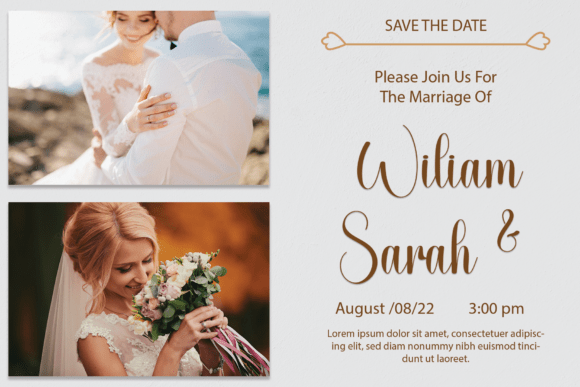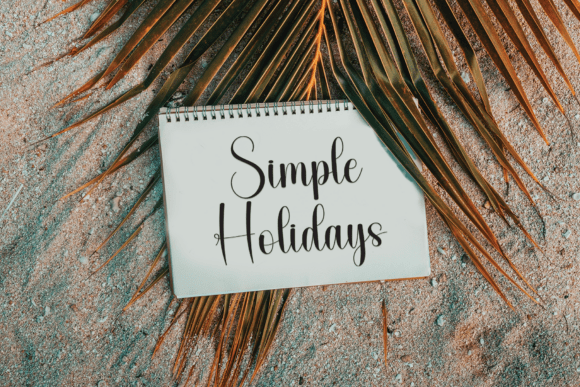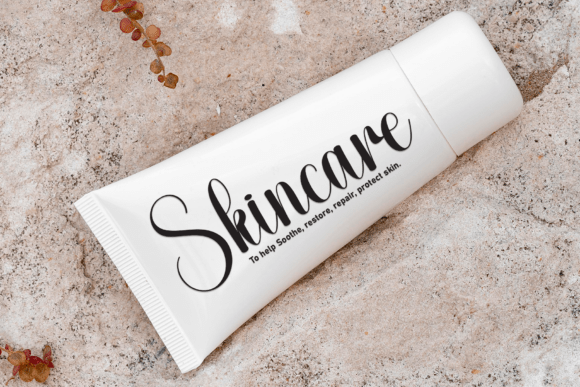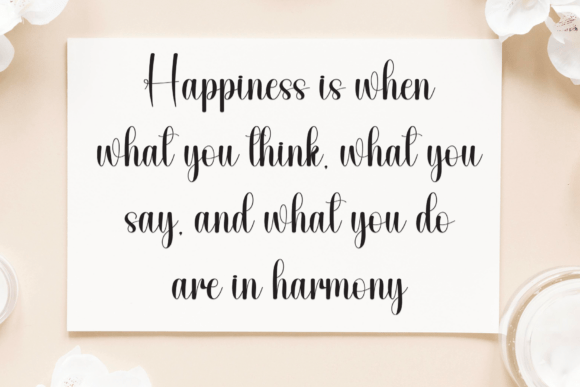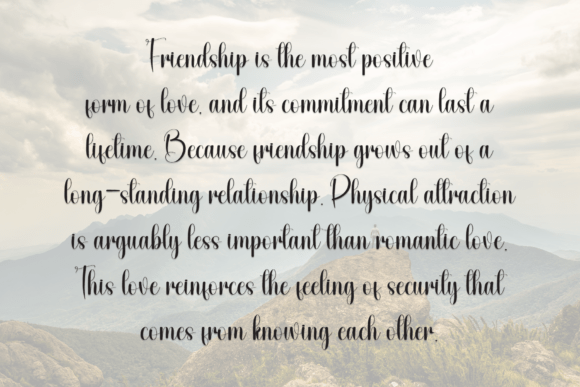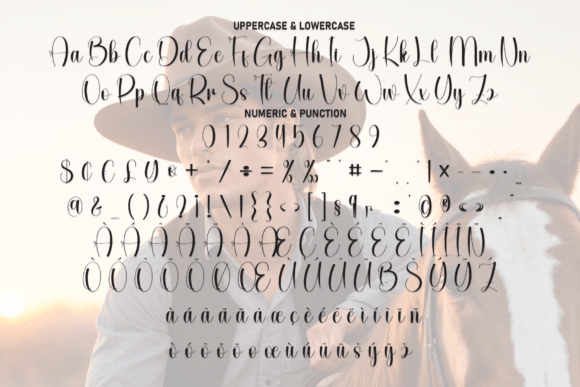
Introduction to Howdy Font
Do you remember the thrill of creating your first handmade card or wedding invitation? The rush of excitement as you carefully select each element, from the font to the graphics, to make it truly special? For many designers, that moment is a defining part of our creative journey, and it’s what makes our work so personal and meaningful.
Today, we’re excited to introduce you to a new design resource that’s sure to bring a smile to your face: the delightful Howdy Font. This charming, handwritten display font is the perfect blend of whimsy and charm, making it an ideal choice for any creative project that needs a touch of personality.
Whether you’re a seasoned designer or just starting out, Howdy Font is a valuable addition to your design toolkit. With its high-quality design and transparent background, you can easily incorporate it into your designs and take them to the next level. And the best part? It’s available for free download, making it a fantastic resource for designers of all levels.
Key Features of Howdy Font
- High-quality design: The Howdy Font is a premium font that offers a unique and stylish design perfect for any creative project.
- Transparent background: The font has a transparent background, allowing users to easily layer it over other design elements.
- High-resolution design: The font is designed at a high resolution (300 DPI), making it perfect for use in large-scale designs and prints.
- Unique characteristics: The Howdy Font features a unique blend of western and modern elements, making it perfect for designers looking to add a touch of personality to their creative projects.
- Perfect for various design projects: The Howdy Font is ideal for use in logos, branding, signage, and other creative projects where a high-quality, unique font is required.
Honest Review: Howdy Font
I recently came across the Howdy Font while searching for a unique design resource for a creative project. I was excited to download it for free and see if it would meet my expectations.
The first thing I noticed about the Howdy Font is its high quality and crisp lines. It’s perfect for a design project that requires a bold and eye-catching font. The font is also available with a transparent background, which is a huge plus for designers who need to customize their designs.
What works well with the Howdy Font is its versatility. It’s suitable for a wide range of creative projects, from logos to brochures. The font is also easy to use, even for designers who are new to font selection.
- ✨ High-quality design with crisp lines
- ✨ Available with transparent background
- ✨ Versatile and suitable for various creative projects
- ✨ Easy to use
⚠️ One limitation of the Howdy Font is its limited character set. While it’s perfect for headings and titles, it may not be suitable for body text.
Overall, I’m impressed with the Howdy Font and would recommend it to designers looking for a unique and high-quality design resource. It’s a great addition to any design toolkit and can help take creative projects to the next level.
How to Use Howdy Font
The Howdy Font is a unique, high-quality design resource ideal for creative projects. It’s available for free download with a transparent background, making it versatile for various design needs.
Tips for Getting the Most Out of Howdy Font
To get the most out of the Howdy Font, experiment with different font sizes, colors, and combinations. Use it to create eye-catching headlines, titles, and graphics that make your design stand out.
The Howdy Font is perfect for various design needs, including: creating logos, designing graphics for social media, and developing marketing materials. Its high-quality design and transparent background make it an ideal choice for any creative project.